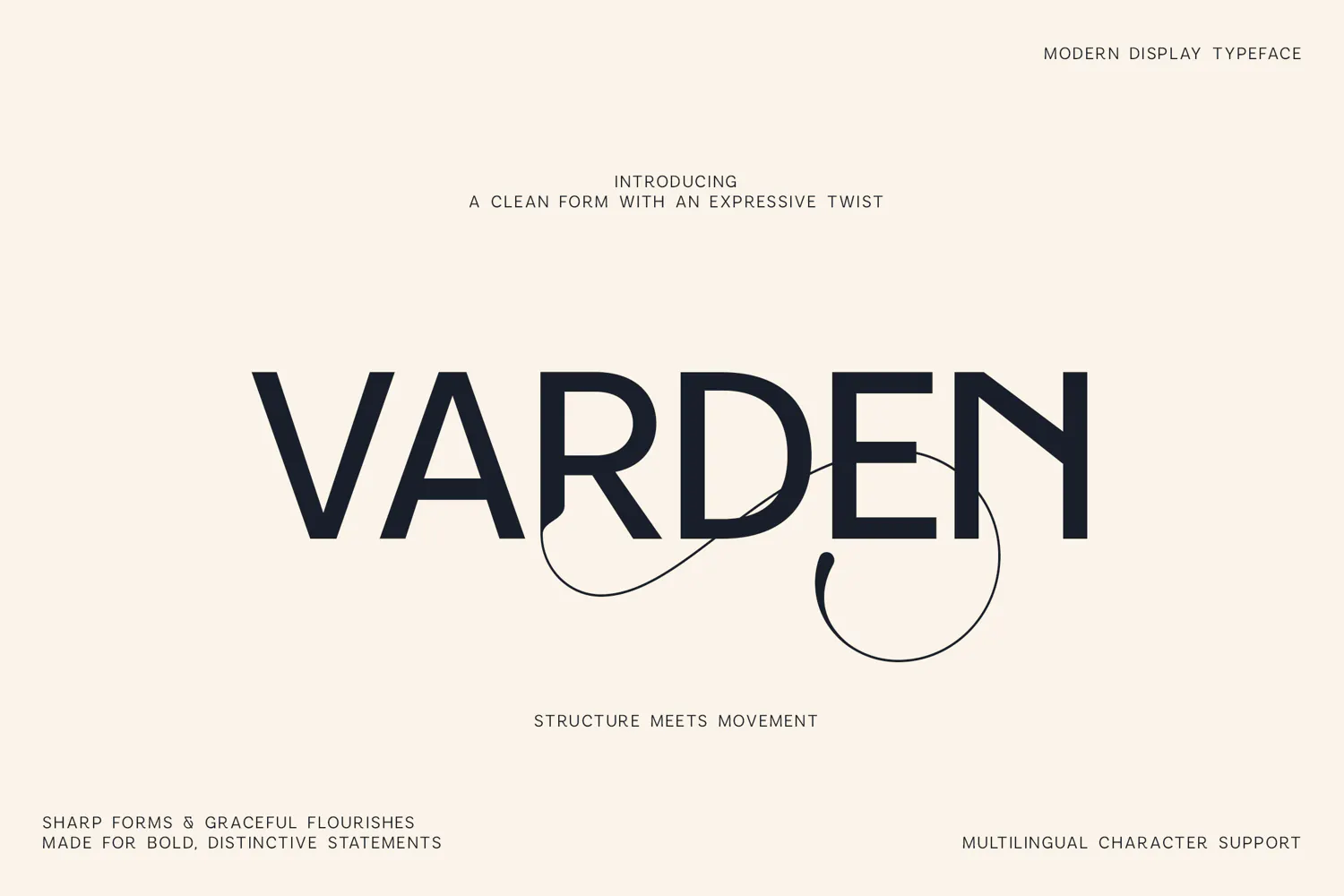
Varden Stylish Sans Serif Font for Branding
Build distinctive visual identities with Varden, a stylish sans serif font designed for logos, branding and modern graphic design.
Varden starts with clean, confident shapes and introduces expressive details that give selected characters a more memorable personality. The result feels polished and contemporary without becoming another purely geometric sans serif.
Its strong forms work naturally in logos and headlines, while the unusual character details help brands develop a recognizable typographic voice.
This stylish sans serif font is ideal for:
- Logo design
- Brand identities
- Product packaging
- Business stationery
- Editorial titles
- Posters
- Website graphics
- Fashion branding
- Social media design
- Advertising
Varden is especially effective when used in clean compositions where its individual letterforms have enough space to stand out.
Use this stylish sans serif font when a project needs modern clarity combined with something more recognizable and expressive.